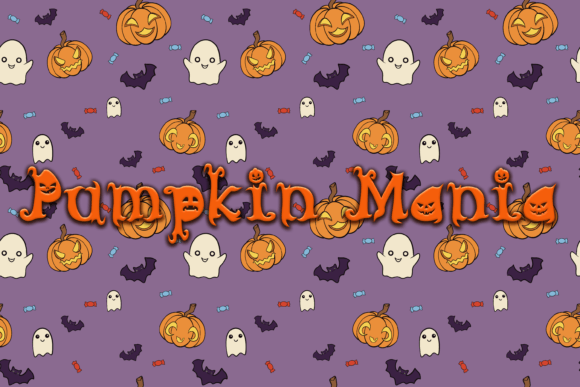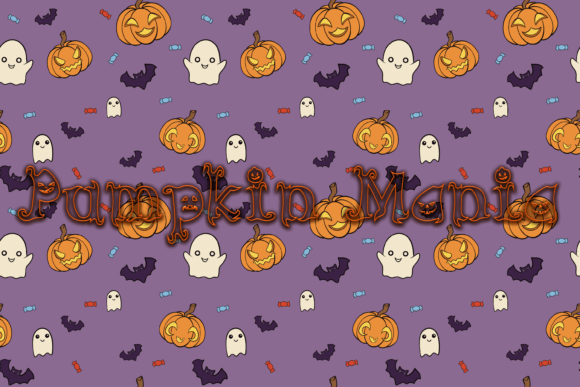
Introduction to Pumpkin Mania Font
Have you ever found yourself scrolling through design inspiration boards, only to stumble upon a project that perfectly captures the essence of the season? For me, it’s the eerie glow of jack-o-lanterns, the crunch of fallen leaves, and the whimsical charm of Halloween decorations. As a designer, I’m always on the lookout for that special something that adds a touch of magic to my creative projects.
That’s where the Pumpkin Mania Font comes in – a delightful display font that’s sure to cast a spell on your designs. This quirky and mysterious font is a design resource that’s perfect for all your Halloween-related projects, from spooky invitations to haunted house signs. With its high-quality design and transparent background, it’s a versatile tool that’s sure to elevate your creative project to the next level.
Pumpkin Mania Font
- High-quality design resource perfect for creative projects, especially those related to Halloween and fall seasons.
- Comes with a transparent background, allowing for easy customization and integration with various design elements.
- Designed with a unique, playful style that adds a touch of whimsy to any design project.
Honest Review: Pumpkin Mania Font
I recently had the chance to experiment with the Pumpkin Mania Font for a creative project, and I must say it was an interesting experience. This font is designed to add a playful touch to your designs, with its bold and quirky characters.
- ✨ High-quality design: The Pumpkin Mania Font has a crisp and clean look, making it perfect for digital designs.
- ✨ Versatile: This font is suitable for various design projects, from greeting cards to social media posts.
- ✨ Transparent background: The font’s transparent background allows for seamless integration with any design element.
- ⚠️ Limited customization options: The font’s design is fixed, and there’s no option to customize it further.
- ⚠️ Not suitable for formal designs: Due to its playful nature, the Pumpkin Mania Font may not be the best choice for formal or professional designs.
Overall, the Pumpkin Mania Font is a great design resource for designers looking for a creative and fun font. However, its limitations should be taken into consideration before using it for a specific project.
Tips for Getting the Most Out of Pumpkin Mania Font
The Pumpkin Mania Font is perfect for creative projects, such as invitations, social media graphics, and holiday-themed designs. You can also use the font in conjunction with a transparent background to create a unique and eye-catching design. This font is a great free download for designers looking for a high-quality and versatile font.